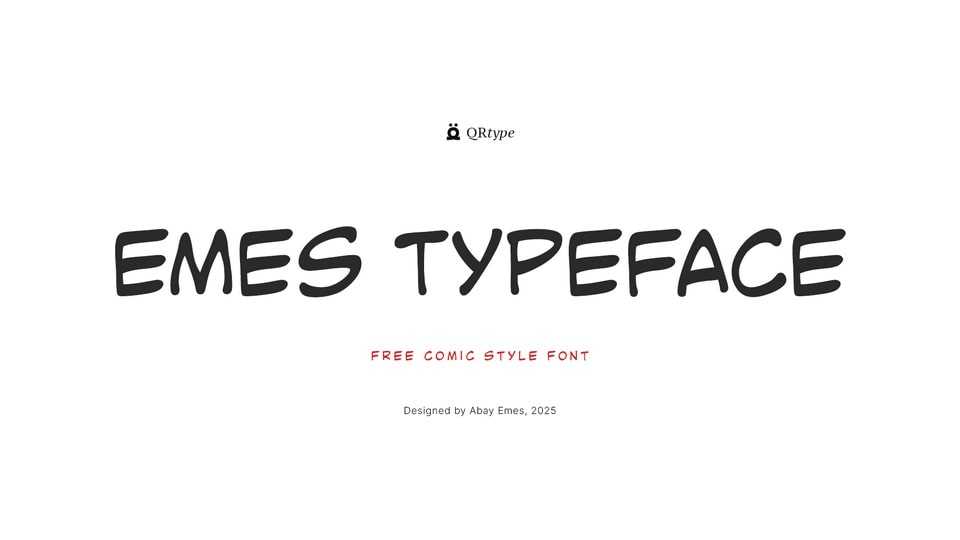
Download Emes font, a friendly and approachable comic-style typeface designed to bring a casual, handwritten charm to your creative projects.
Designer: Abay Emes